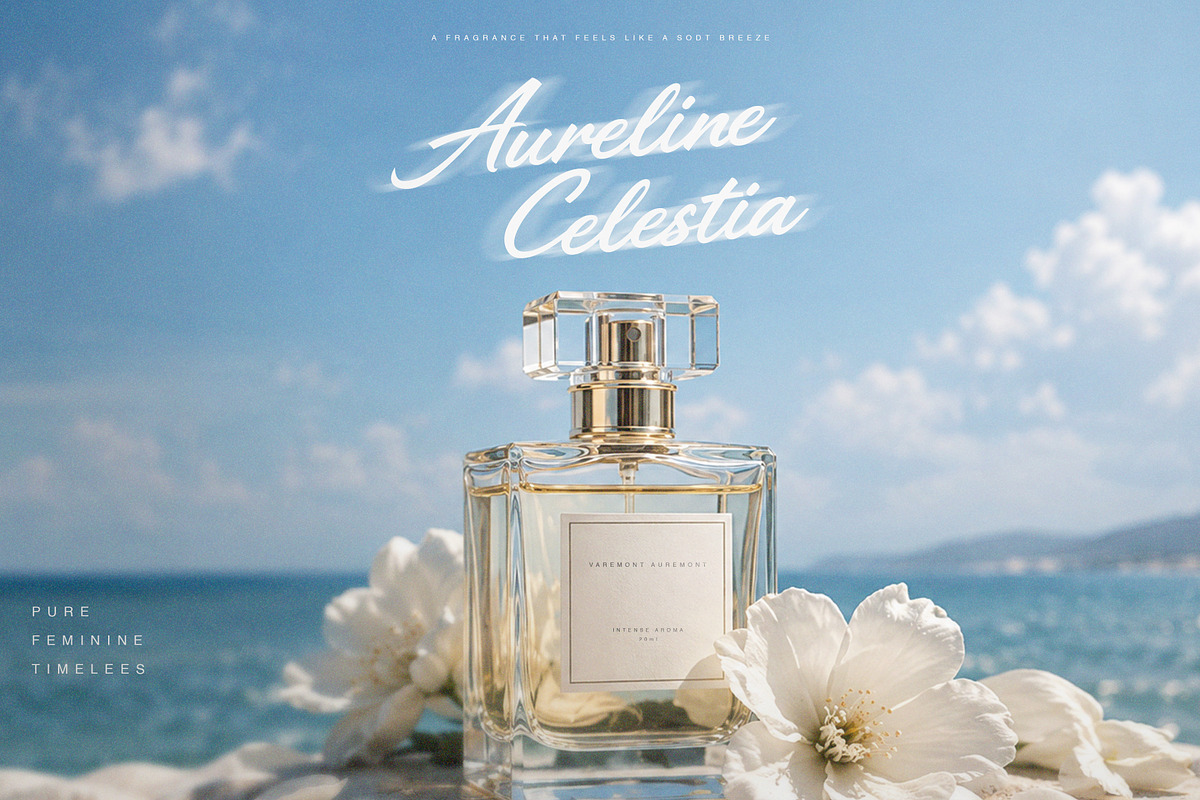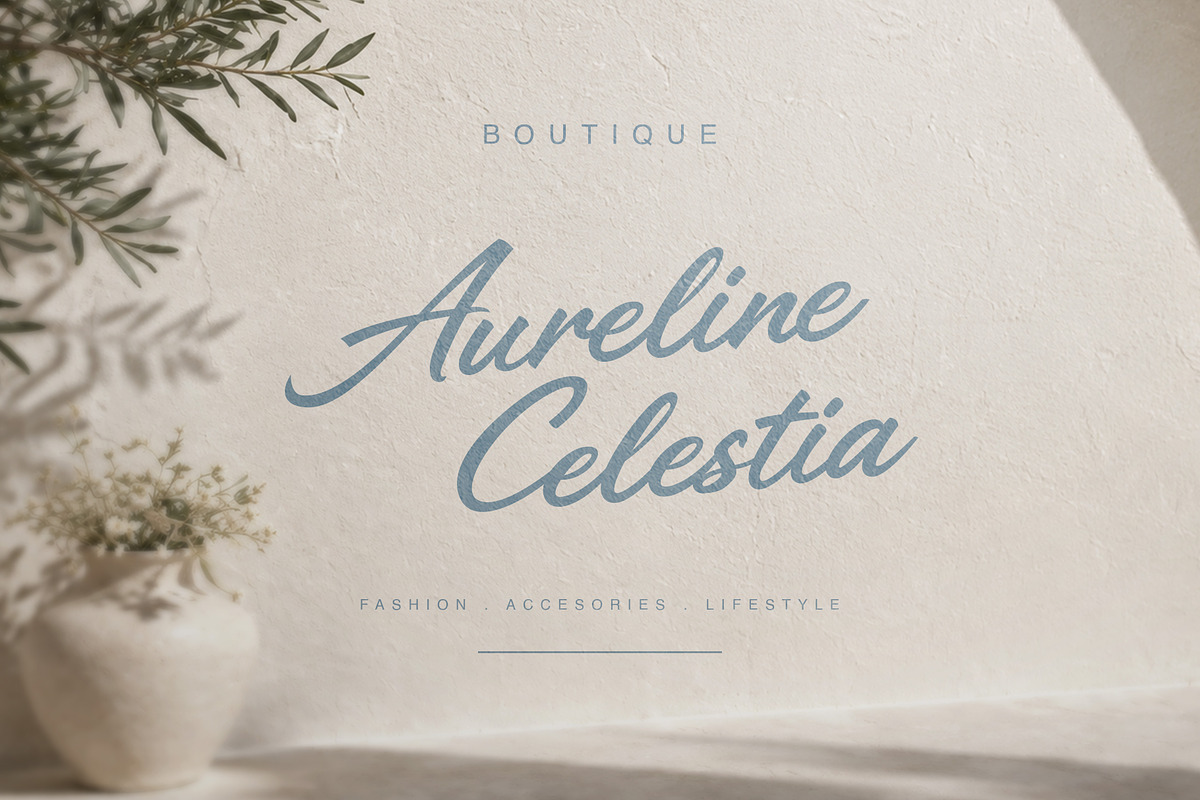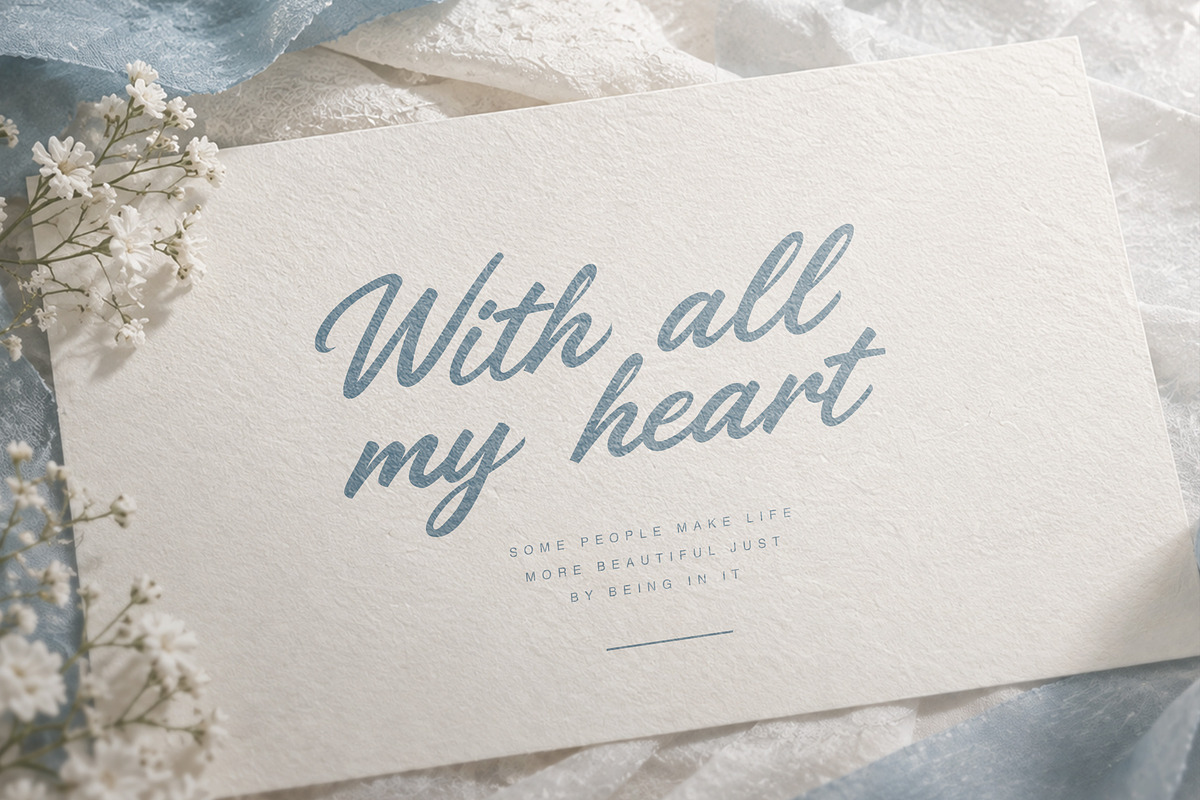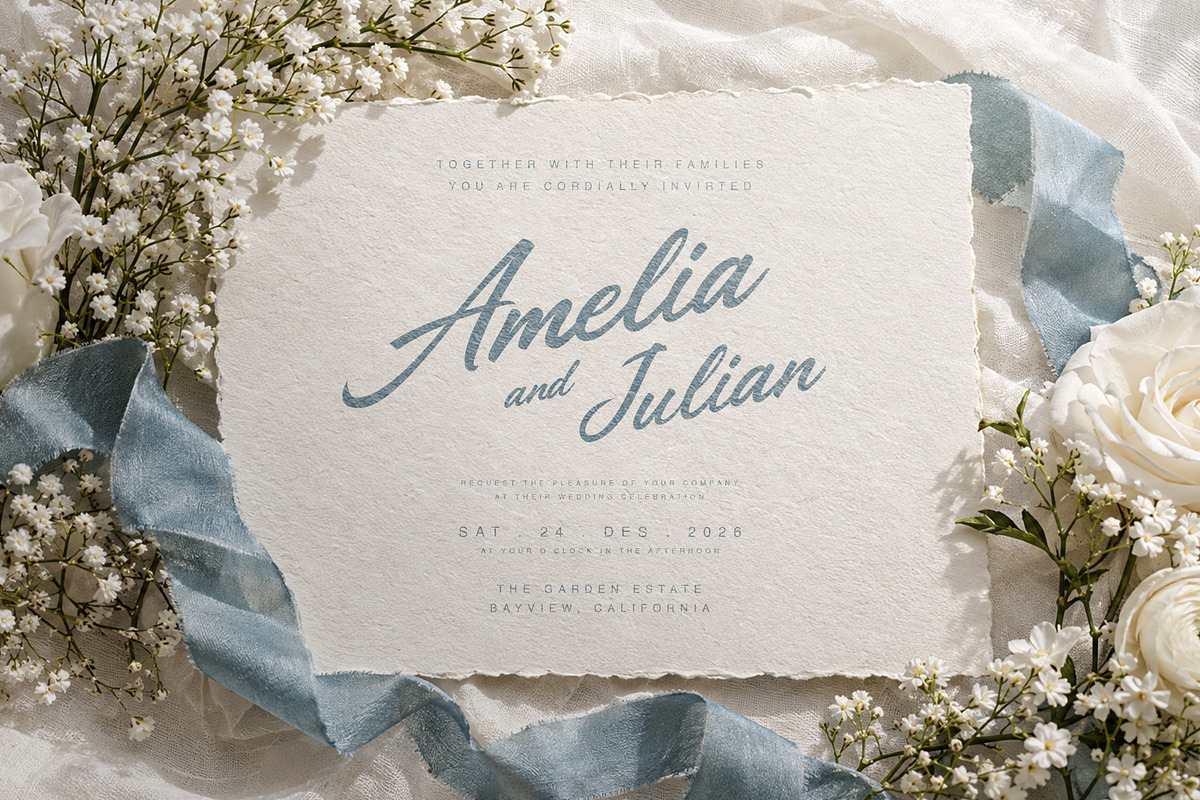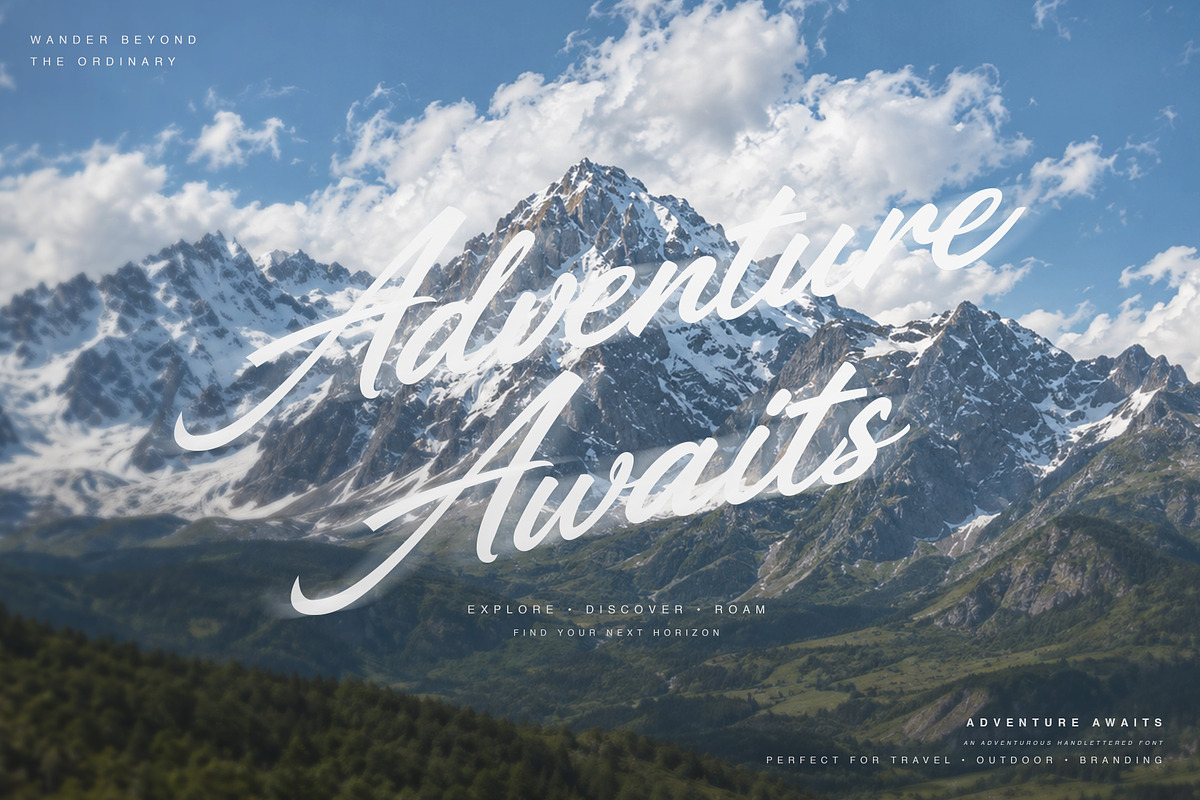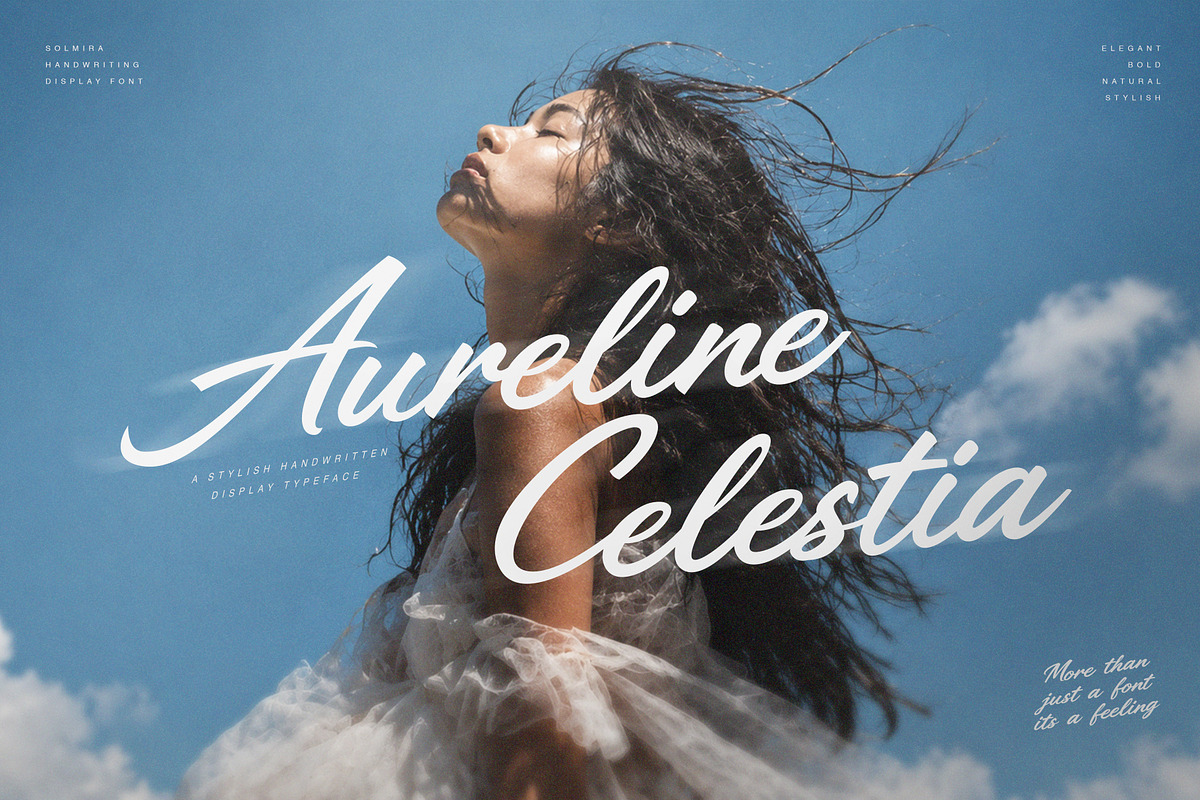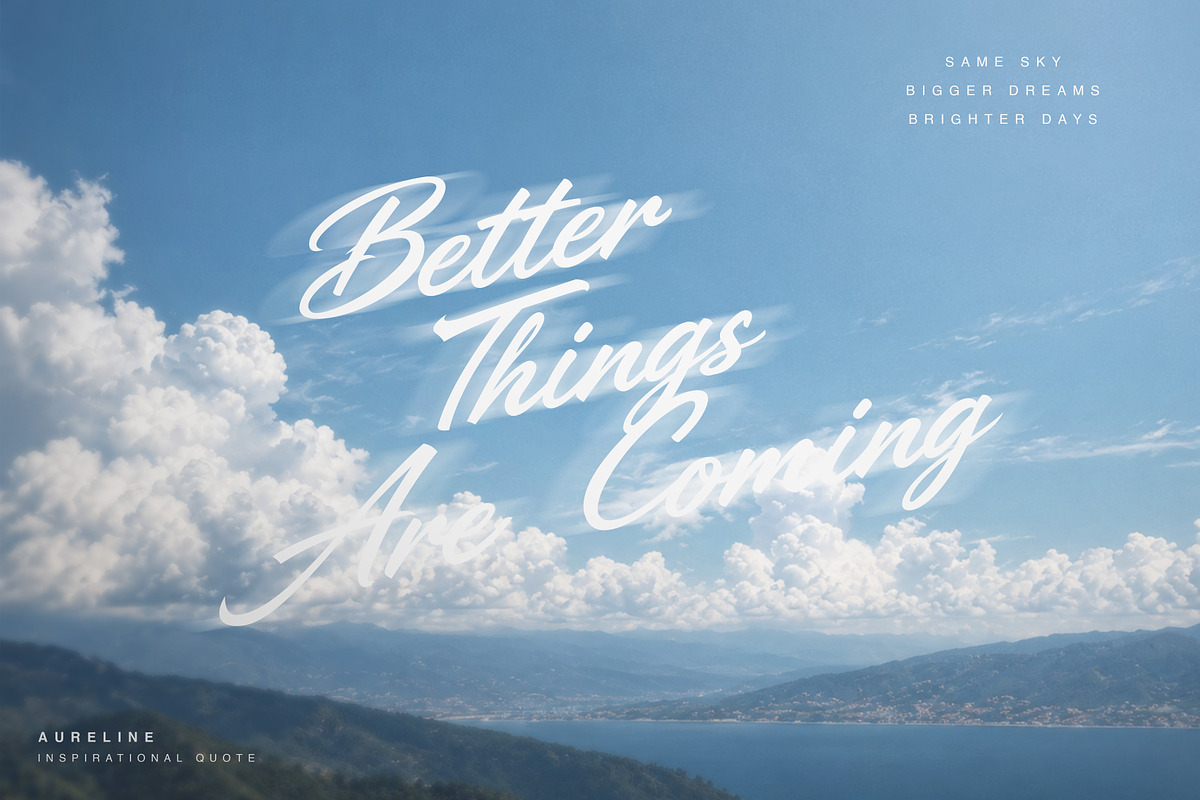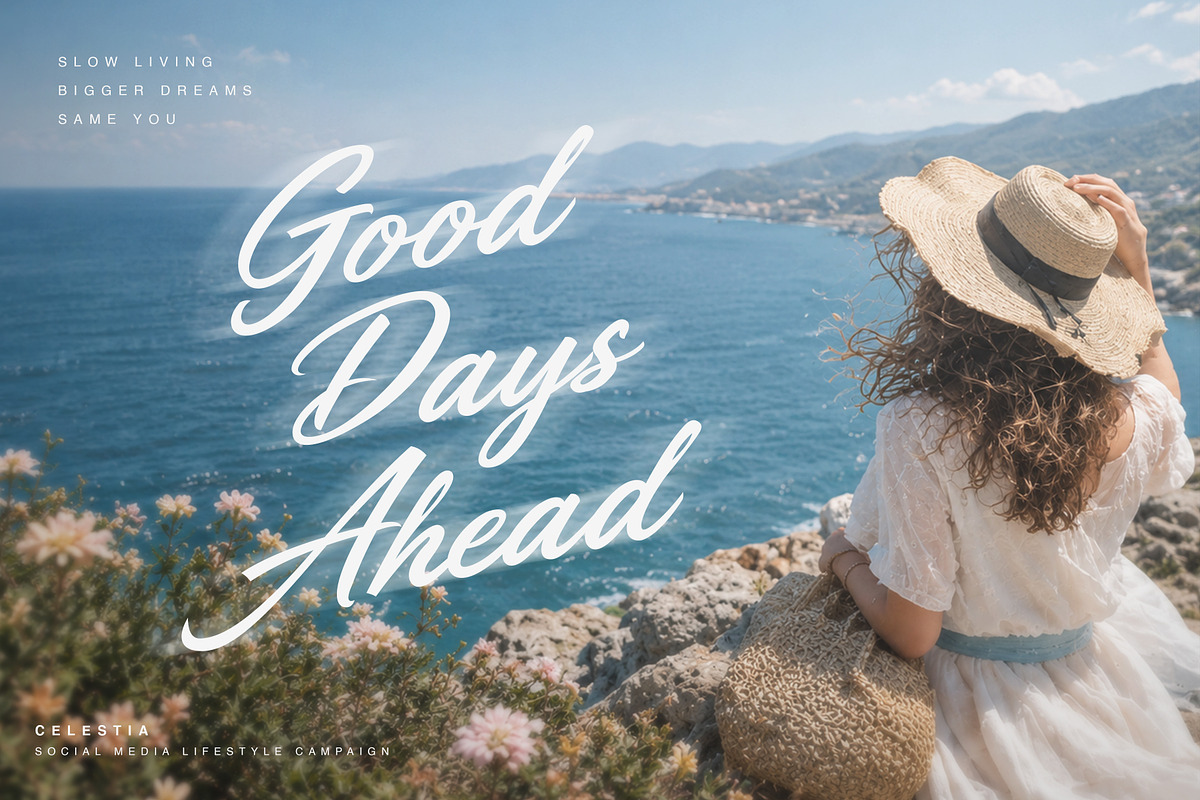
Aureline Celestia – Elegant Script
Aureline Celestia – Elegant Handwritten Script Font
Aureline Celestia is an elegant handwritten script font designed to bring a graceful, expressive, and sophisticated feeling to your creative projects.
Featuring flowing letterforms, stylish curves, natural connections, and beautiful handwritten details, Aureline Celestia is perfect for designs that need a personal and luxurious touch. Its expressive character works beautifully as a statement typeface for headlines, logos, branding, packaging, editorial designs, invitations, fashion projects, and social media content.
Inspired by modern fashion editorials, feminine aesthetics, romantic typography, and handwritten signature styles, Aureline Celestia combines an artistic personality with a versatile display character.
Logo & Brand Identity
Fashion Branding
Beauty & Cosmetics
Luxury Branding
Boutique & Lifestyle Brands
Wedding Invitations
Bridal Stationery
Greeting Cards
Editorial Design
Magazine Covers
Posters & Advertising
Packaging & Labels
Product Branding
Perfume & Fragrance
Skincare & Beauty Products
Photography Branding
Personal Branding
Apparel & Merchandise
Quotes & Wall Art
Blogs & Websites
Creative Campaigns
Whether you're creating a sophisticated logo, an elegant invitation, a fashion campaign, or a beautiful social media graphic, Aureline Celestia is designed to make your typography stand out with an authentic handwritten feel.
Aureline Celestia — more than just a font, it's a feeling.